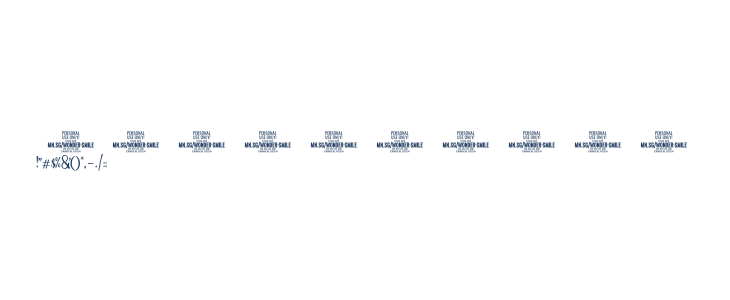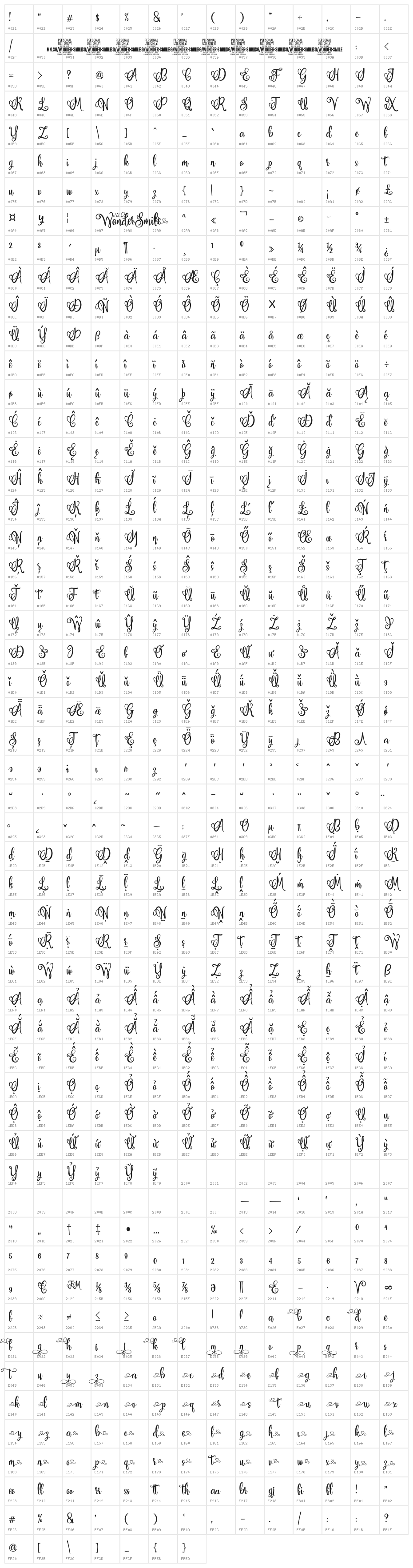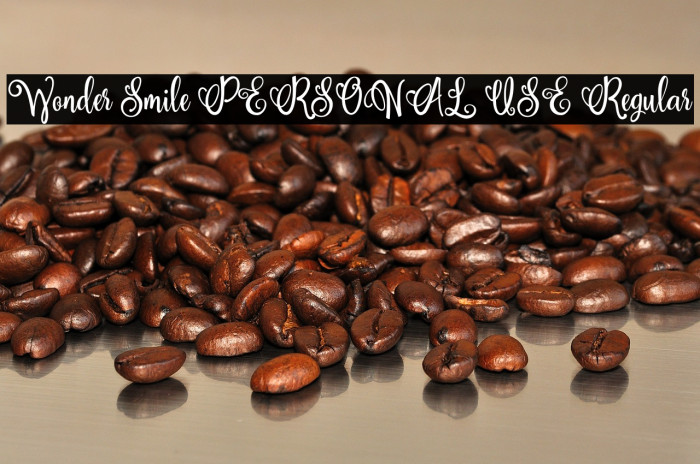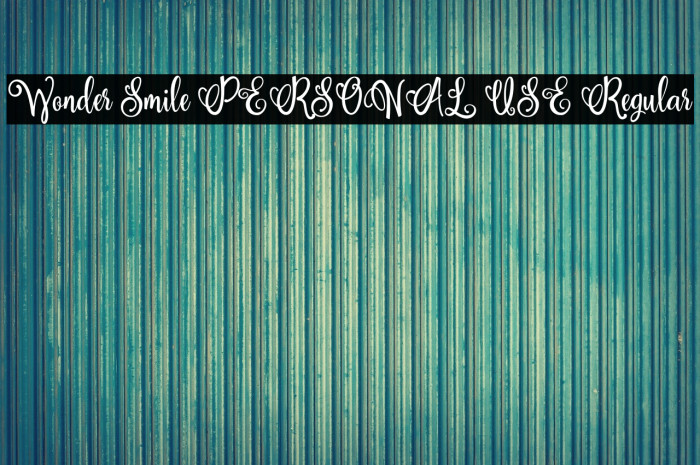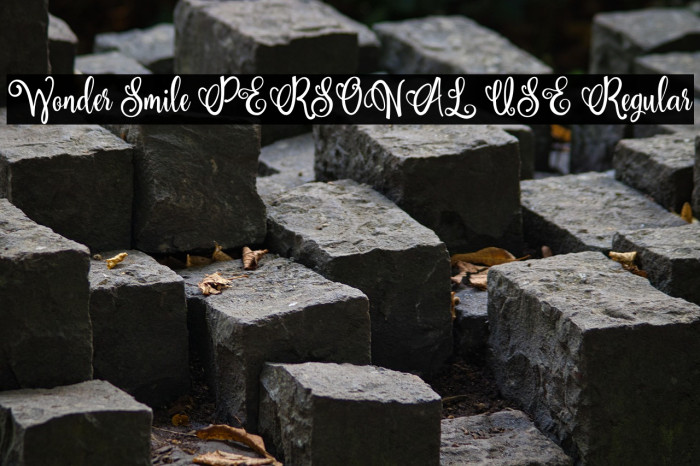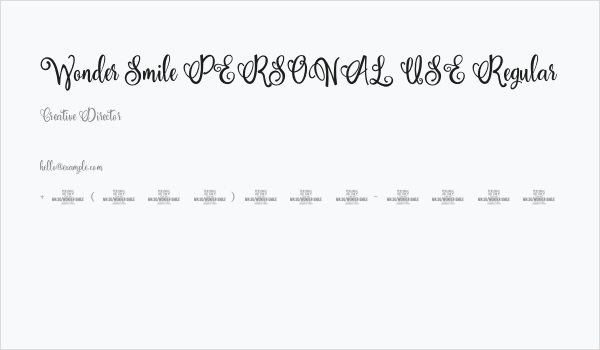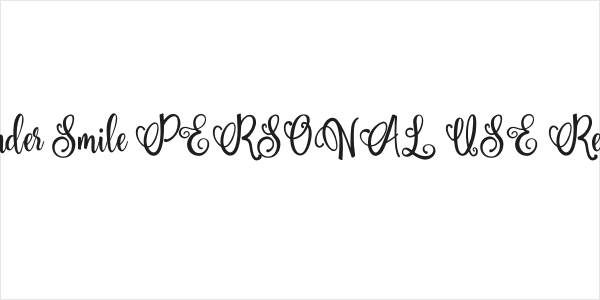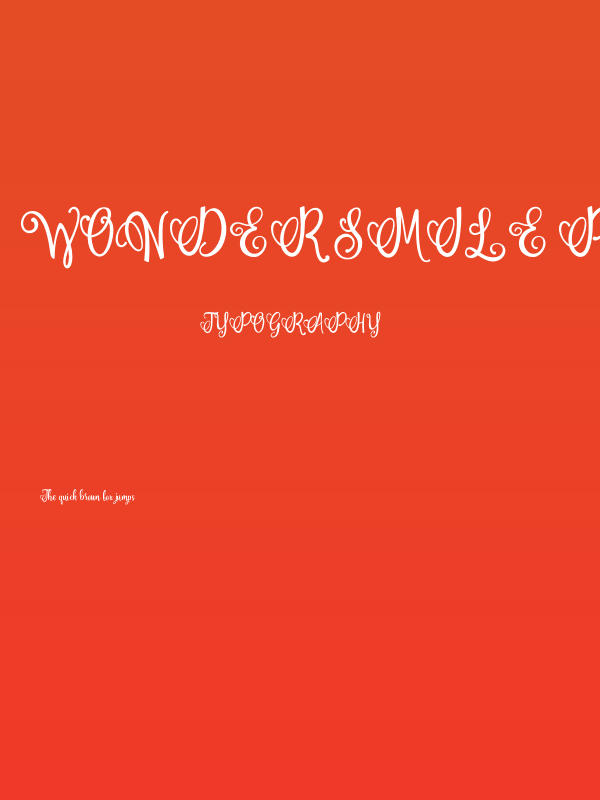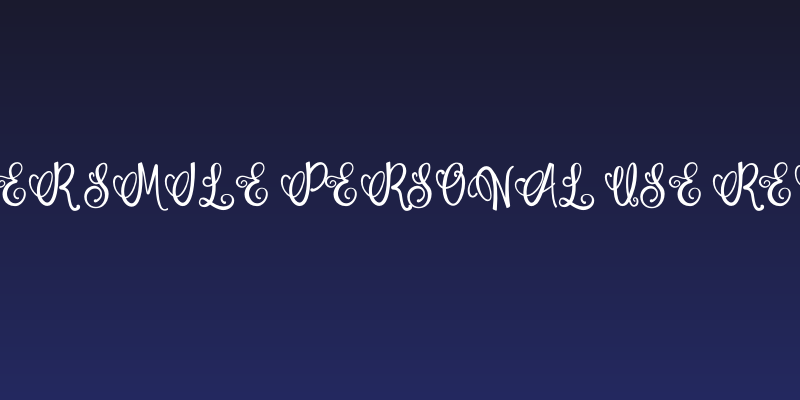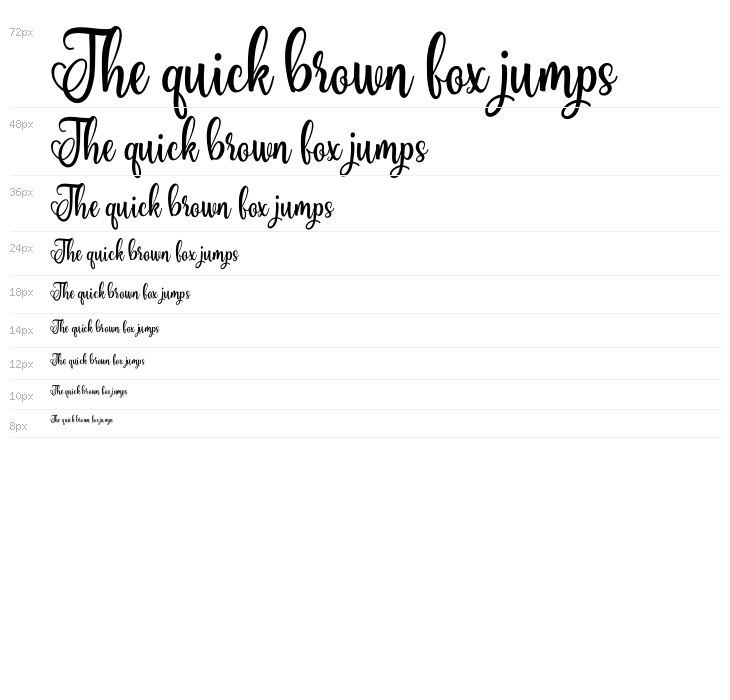
Wonder Smile PERSONAL USE Regular Font
Wonder Smile PERSONAL USE Regular Description
This font features an elegant and playful script style with a whimsical flair. The uppercase letters are adorned with intricate loops and swirls, giving them a decorative and artistic appearance. The lowercase letters maintain a smooth and flowing cursive style, which complements the ornate uppercase. The font has a lively and cheerful personality, making it suitable for creative and expressive designs. The characters are well-spaced, ensuring readability while maintaining their decorative appeal. The special characters and numbers follow the same playful and artistic design, adding to the font's cohesive look.